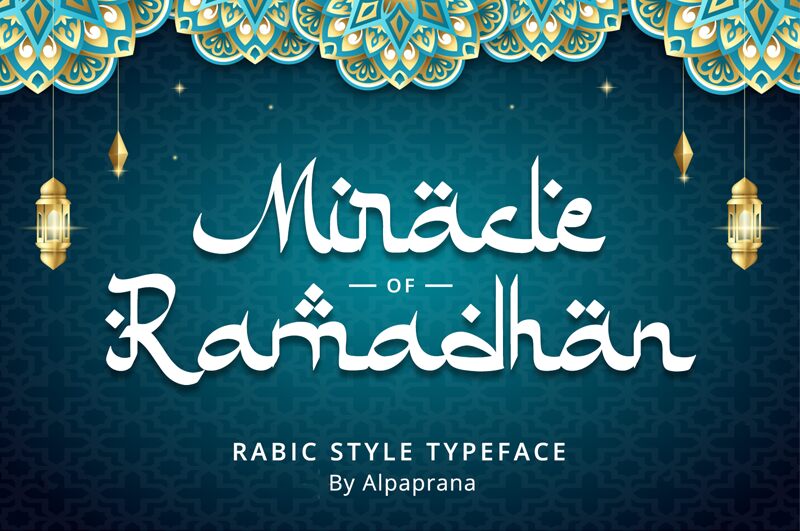
Miracle Ramadhan
Miracle Ramadhan, created by Alpaprana Studio, is a foreign font that embodies the beauty and elegance of Arabic calligraphy. Its semi-expanded width adds a unique touch to any project, making it suitable for a variety of designs. Whether you're designing an invitation for a Ramadan celebration or creating a logo for an Arabic-inspired business, Miracle Ramadhan's arabic style is perfect for adding a touch of sophistication to your work. This font will transport your audience to the Middle East and leave them captivated by the intricate details of each letterform.